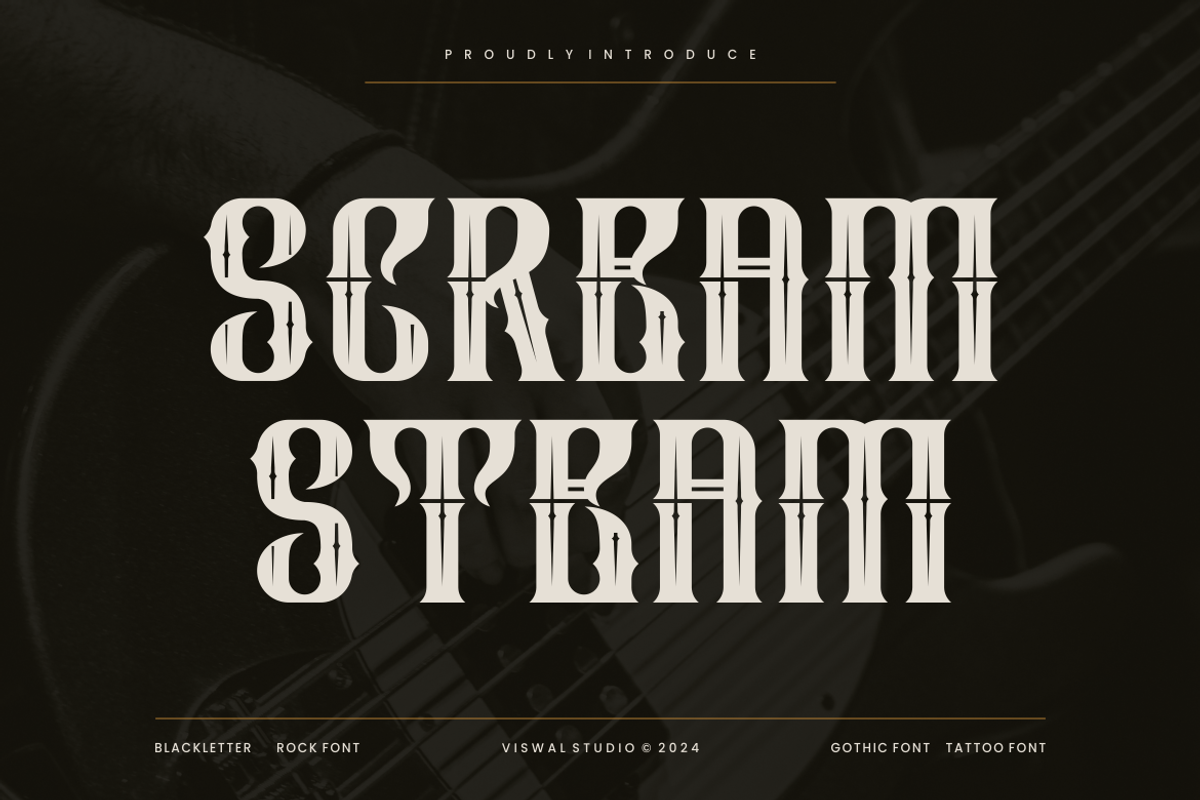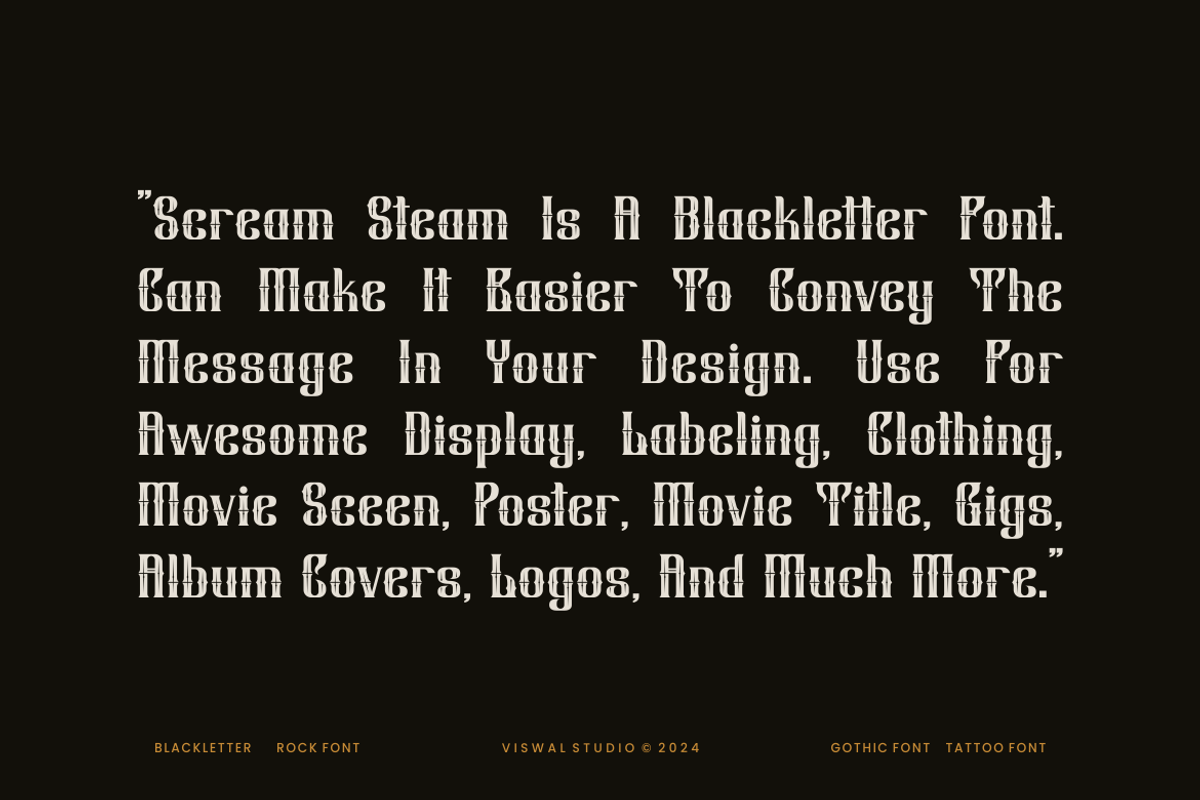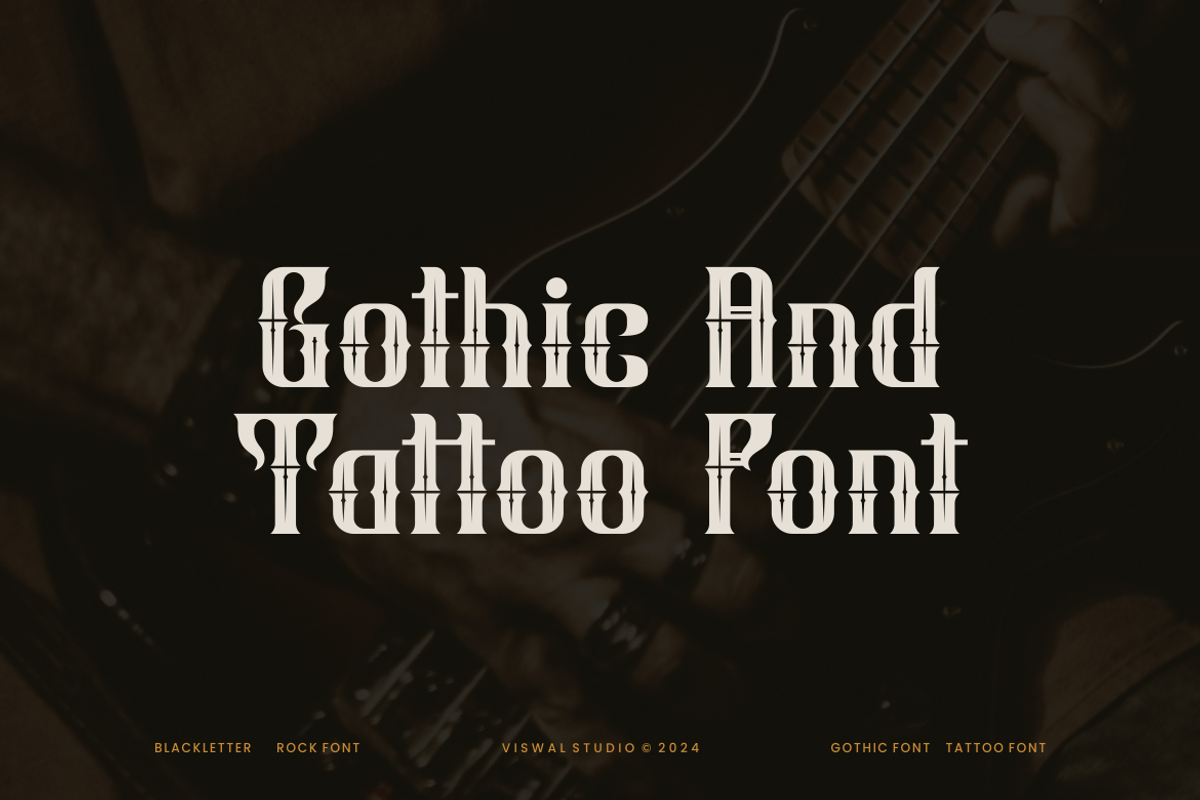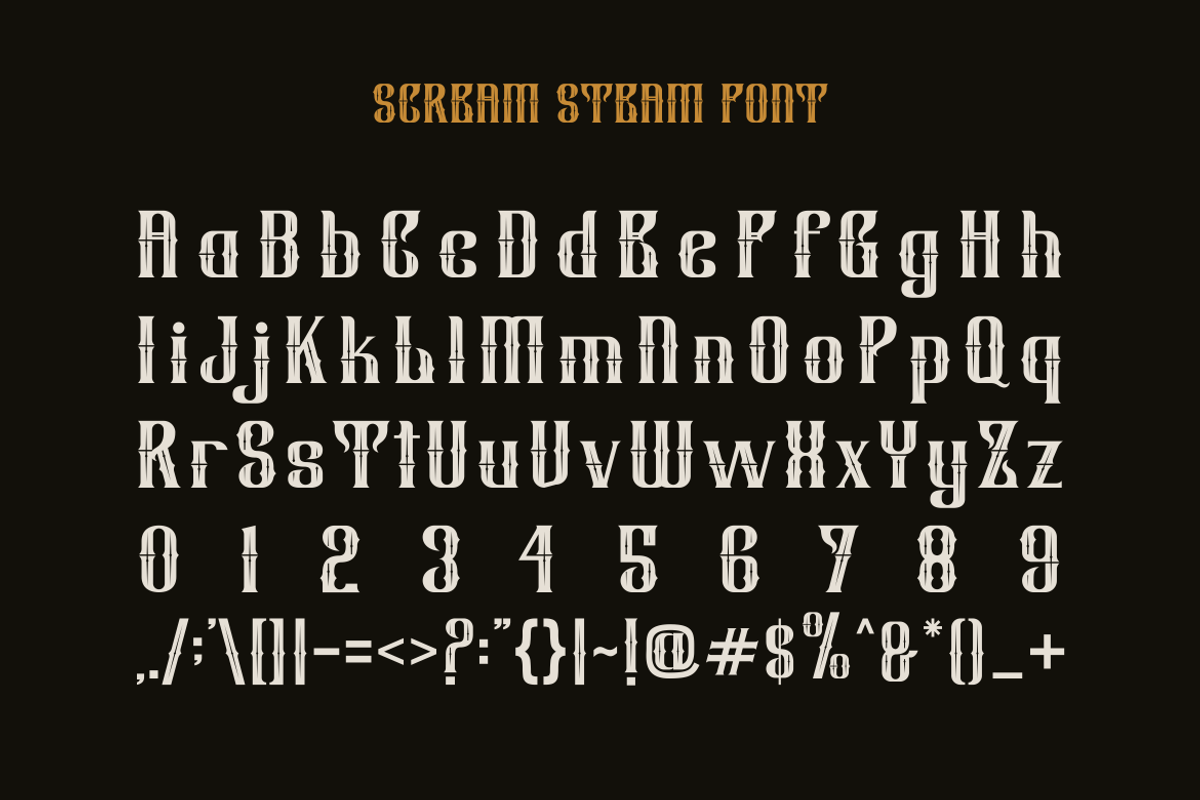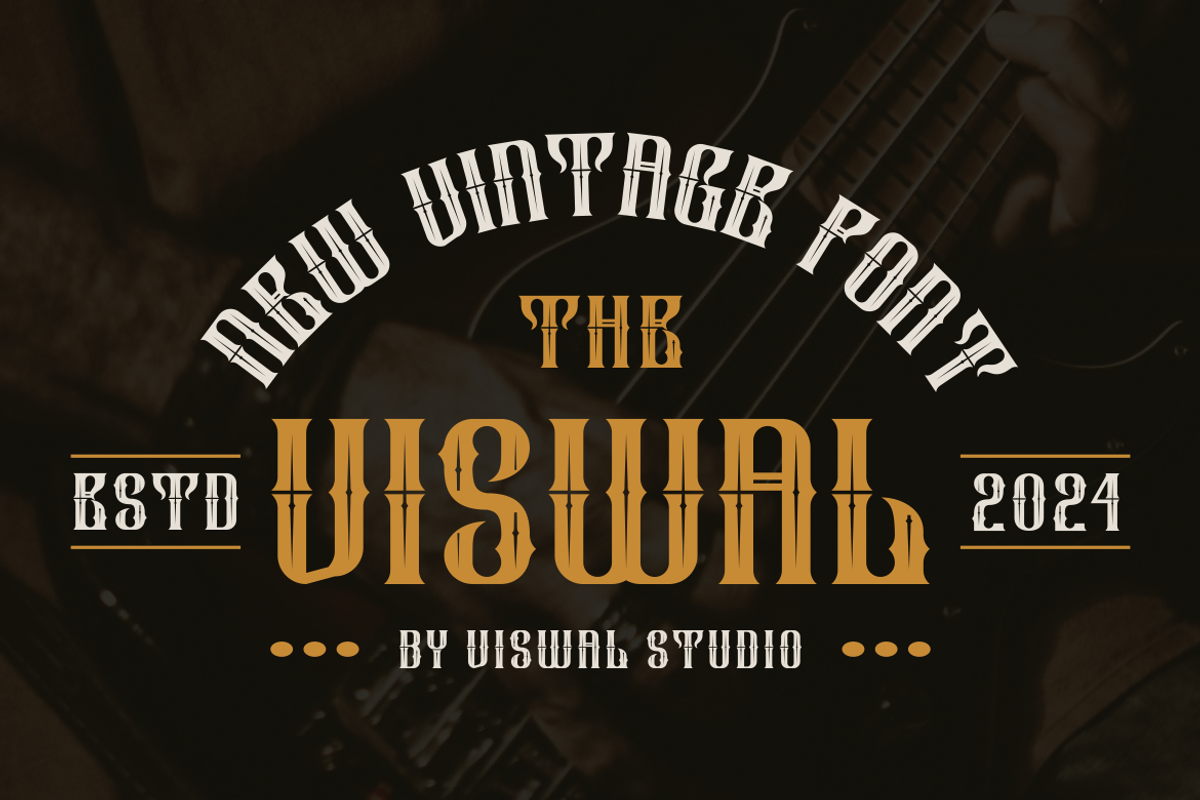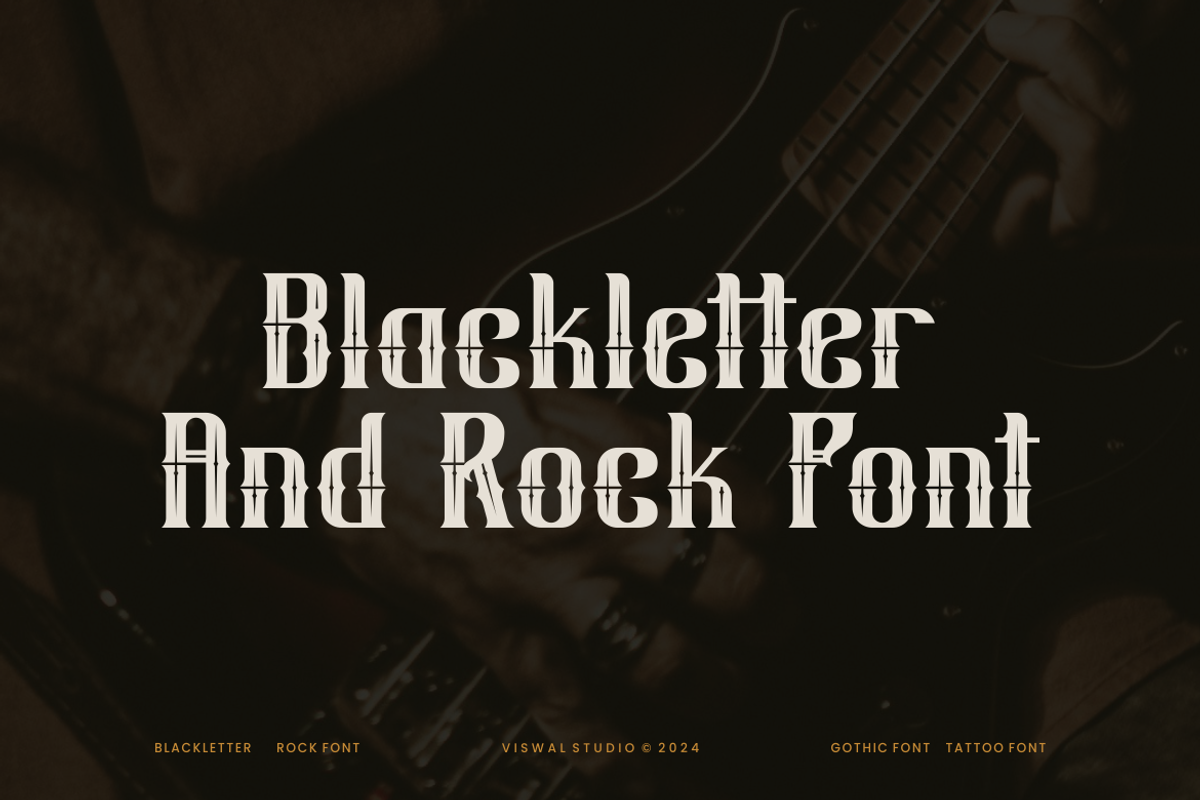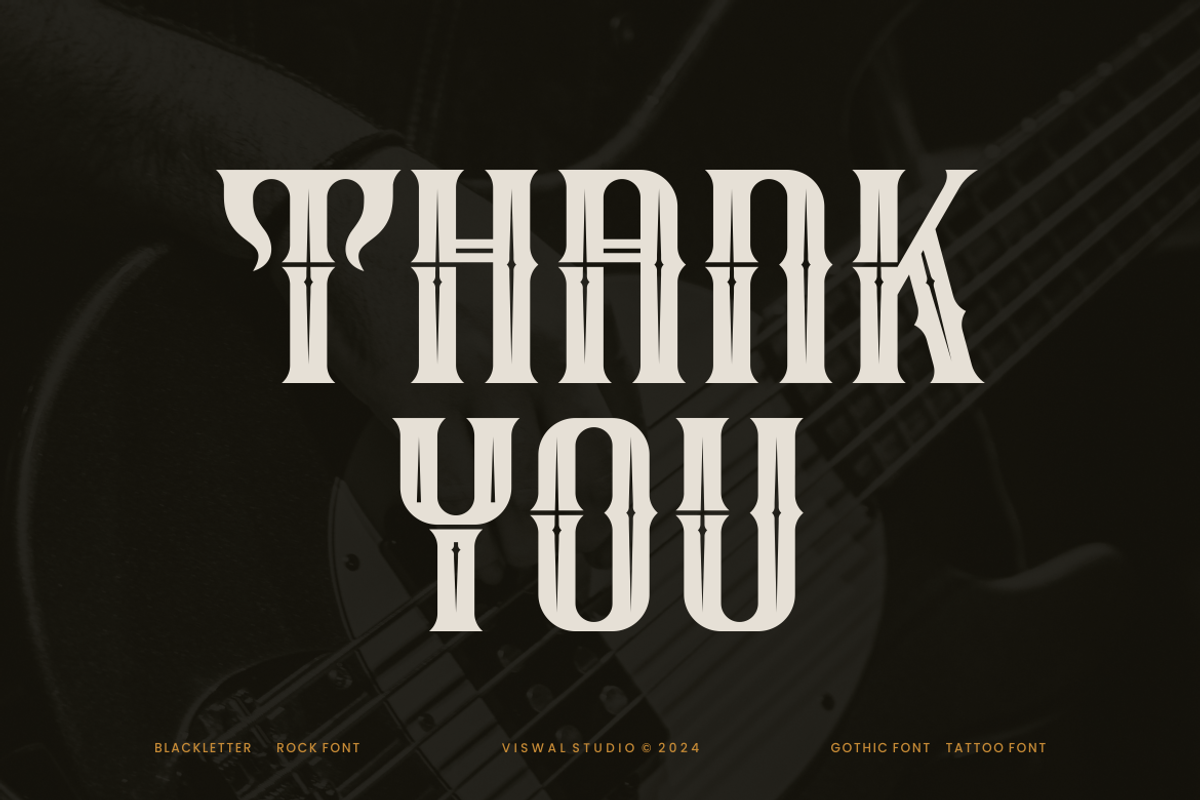
Scream Steam - Gothic Blackletter
Presenting Scream Steam Is A Gothic Blackletter Font
Can Make It Easier To Convey The Message In Your Design. Font Is Suitable For Logo, Labels, Badge, Branding, Magazine, Poster, Title, Gigs, Covers And Etc. Our Fonts Have Uppercase & Lowercase, Numeral & Punctuation, And Opentype Features. For Amazing Designs You Can Mix With Other Fonts As A Complement.